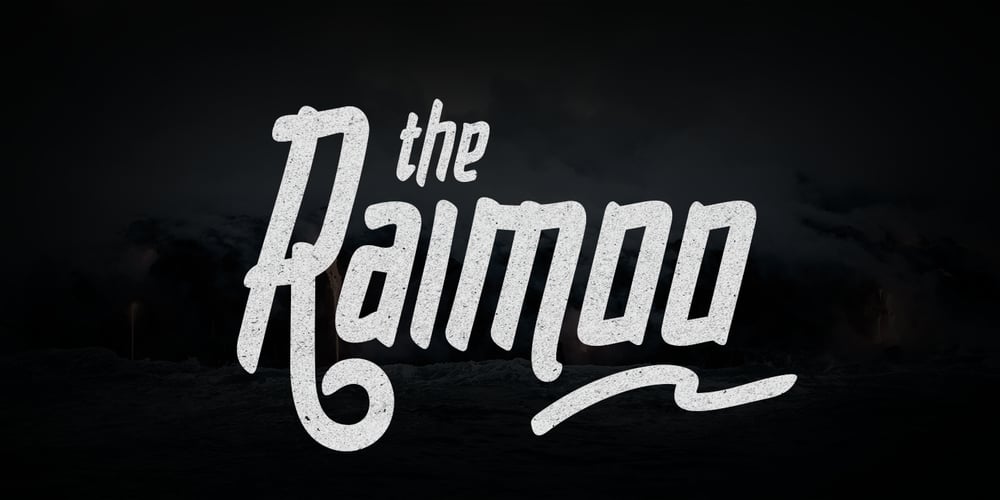
Raimoo
Raimoo font
Raimoo Font Family was designed by Faka Pratama Putra and published by Tama Putra. Raimoo contains 2 styles and family package options. Raimoo is a handwritten typeface. It is suitable for any design needs, branding, cover title, t-shirts, posters and more. The Raimoo typeface includes multi-lingual and currency support, numerals, and punctuations. It comes comes with standard ligatures, stylistic alternates and 3 stylistic sets.